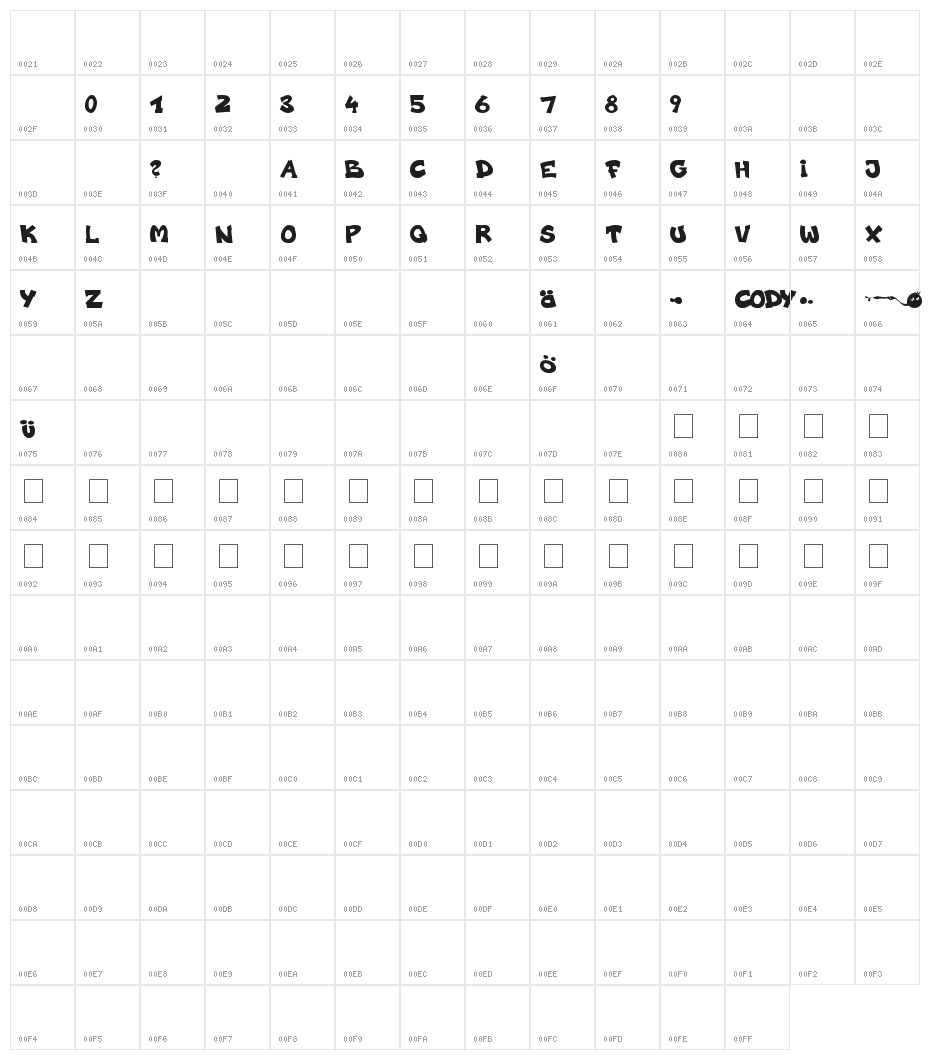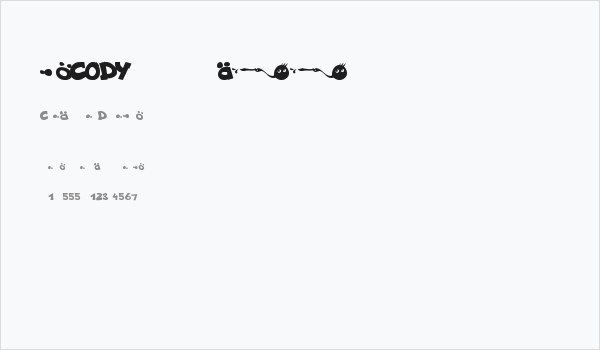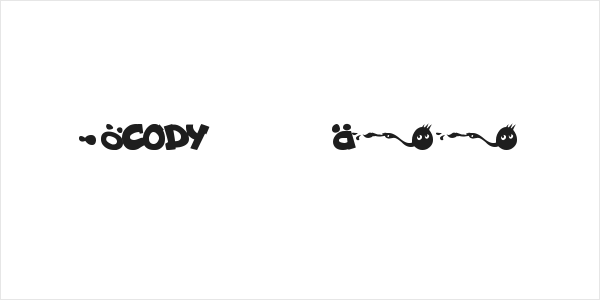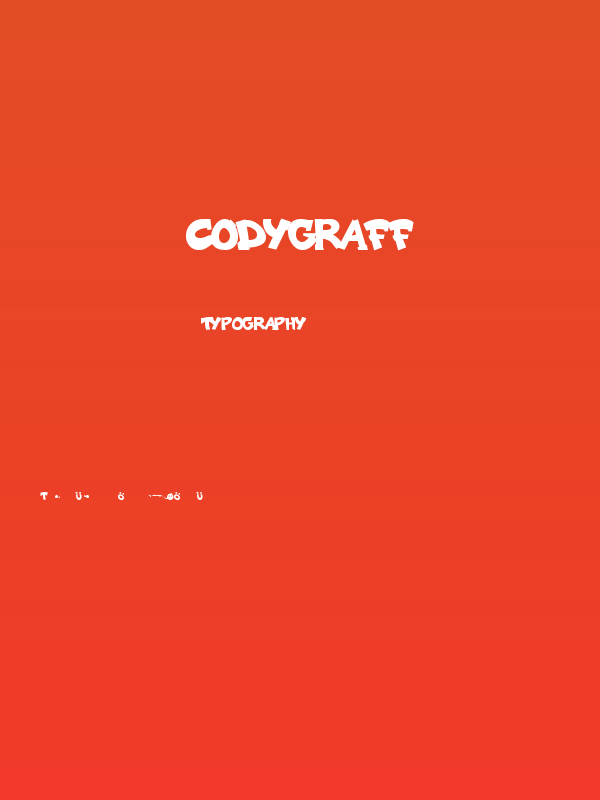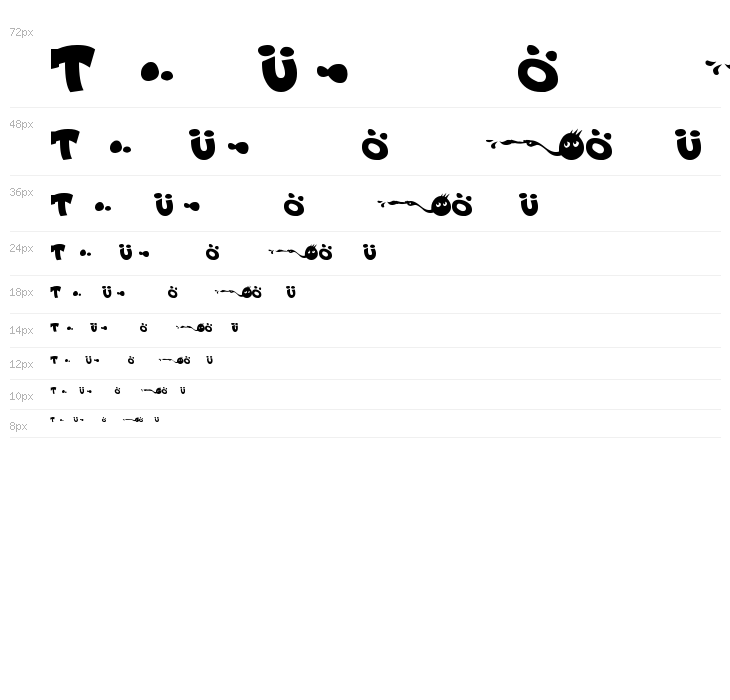
codygraff Font
codygraff Description
This font features a playful and bold design with exaggerated, cartoonish letterforms. The characters have a whimsical, hand-drawn appearance, with varying stroke widths that add a dynamic and lively feel. The uppercase letters are particularly bold, while the lowercase letters maintain the same playful style. The numbers are consistent with the overall theme, making them suitable for creative and informal contexts. The font includes unique special characters that enhance its quirky personality, making it ideal for projects that require a fun and engaging visual element.
| Overall Style | Playful, Cartoonish |
| Proposed Projects | Ideal for children's books, comic strips, playful branding, and party invitations. |